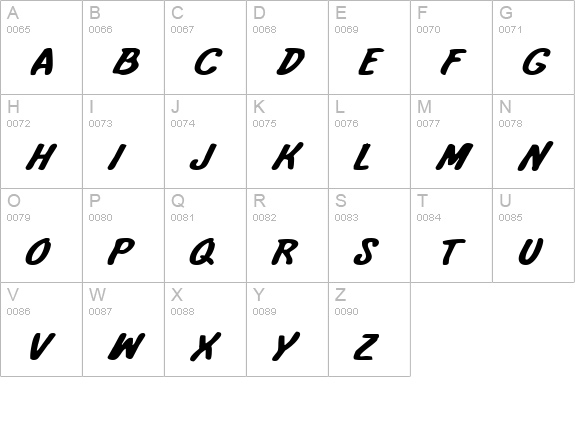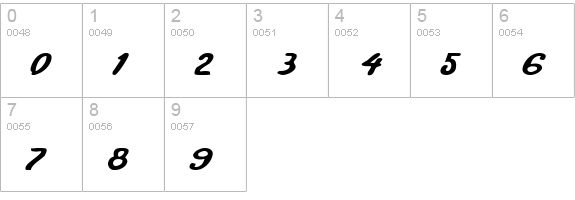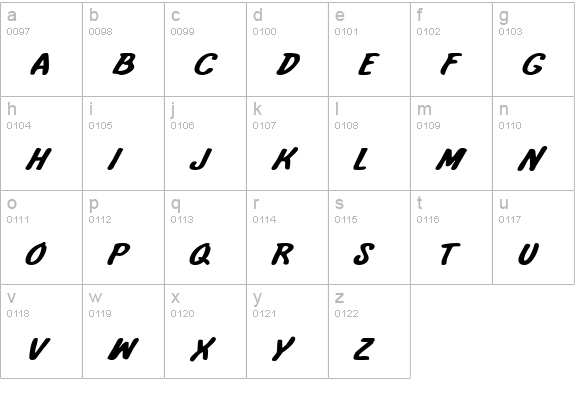
The International Super Hero Exp font is a bold and dynamic typeface that embodies the spirit of heroic action and adventure. With its sleek and powerful design, this font is perfect for capturing the attention of readers and viewers alike. Each letter is meticulously crafted to exude strength and confidence, making it an ideal choice for any project that requires a touch of superheroic flair. But what sets the International Super Hero Exp font apart from other fonts is that it is not only visually stunning, but it is also completely free. Yes, you read that right - this incredible font can be downloaded at absolutely no cost from FontsMarket.com. We believe that creativity should be accessible to all, and by offering this font for free, we hope to inspire and empower creators from all walks of life. Whether you're designing a comic book, creating a movie poster, or crafting a logo for your own superhero persona, the International Super Hero Exp font will undoubtedly elevate your work to new heights. Its versatile nature allows it to seamlessly adapt to various design styles, be it modern, retro, or futuristic. The International Super Hero Exp font is a true embodiment of the superhuman strength and determination that lies within each of us. It serves as a reminder that we all have the power to be heroes in our own right, and with this font, you can bring that heroic energy to your designs. So don't wait any longer - unleash your creativity and download the International Super Hero Exp font today at FontsMarket.com. Join the ranks of countless designers who have discovered the power of this font and let it empower your projects to soar to new heights. Remember, with the International Super Hero Exp font, the only limit is your imagination.